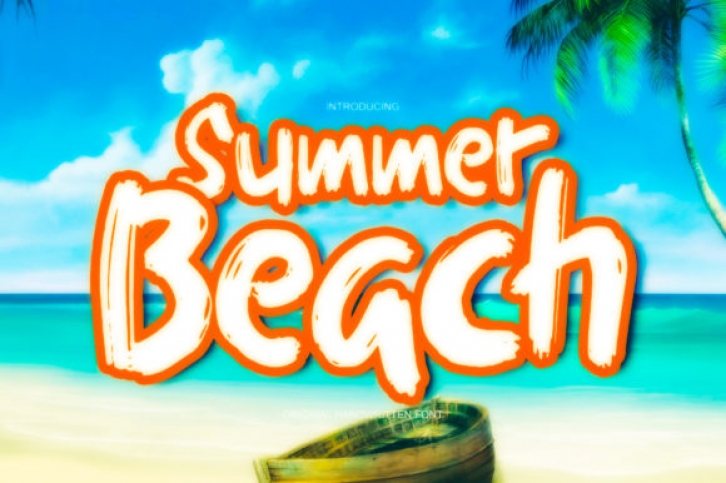
Summer Beach is a cool, casual and bold brushed display font. No matter the topic, this font will be an incredibly asset to your fonts’ library, as it has the potential to elevate any creation.